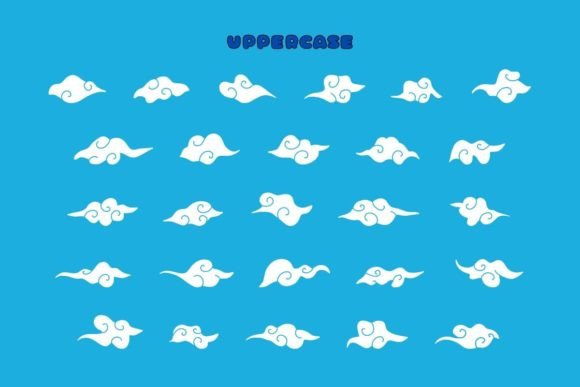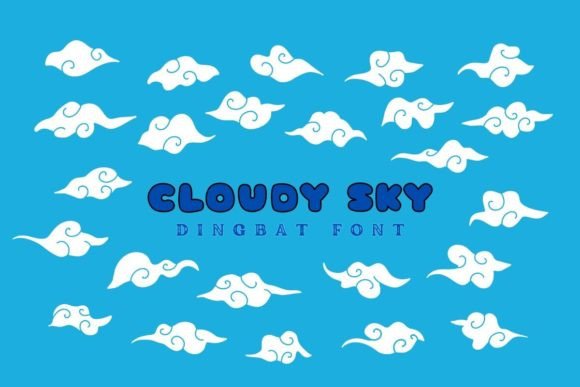
Discover the Whimsical World of Cloudy Sky Font
Are you a designer, crafter, or DIY enthusiast looking for a unique and playful font to elevate your projects? Look no further than the Cloudy Sky Font, a charming cloud dingbat font with a distinctly Chinese style. This delightful font is perfect for adding a touch of whimsy and charm to a wide range of projects, from advertising posts and invitations to greeting cards, photo albums, and decorations.
What is Cloudy Sky Font?
Cloudy Sky Font is a one-of-a-kind dingbat font that features adorable cloud designs, each with its own unique character and charm. The font’s Chinese-inspired style adds an exotic touch, making it perfect for designers and crafters looking to add an Asian flair to their work. With Cloudy Sky Font, you can create stunning designs that are sure to capture the imagination of your audience.
The Cloudy Sky Font is incredibly versatile, making it suitable for a wide range of projects. Here are just a few ideas to get you started:
- Advertising Posts: Add a playful touch to your social media ads and marketing materials with Cloudy Sky Font.
- Invitations: Create eye-catching invitations for parties, events, and special occasions.
- Greeting Cards: Design beautiful greeting cards for birthdays, holidays, and other celebrations.
- Photo Albums: Add a personal touch to your photo albums and scrapbooks with Cloudy Sky Font.
- Decorations: Use Cloudy Sky Font to create stunning decorations for parties, events, and everyday decor.
Crafting with Cloudy Sky Font
Crafters will love the Cloudy Sky Font for its endless possibilities in DIY projects. Here are a few ideas to get you started:
- Handicrafts: Add a touch of whimsy to your handmade crafts, such as knitted items, jewelry, and home decor.
- Bags and Purses: Use Cloudy Sky Font to create custom designs for bags, purses, and other accessories.
- Cups and Mugs: Design personalized cups and mugs with Cloudy Sky Font.
- Children’s Book Covers: Create eye-catching covers for children’s books, educational materials, and activity books.
Why Choose Cloudy Sky Font?
So why choose Cloudy Sky Font for your next project? Here are just a few reasons:
- Unique and Playful: Cloudy Sky Font is a one-of-a-kind font that adds a touch of whimsy and charm to any project.
- Versatile: The font is suitable for a wide range of projects, from digital designs to handmade crafts.
Get Creative with Cloudy Sky Font